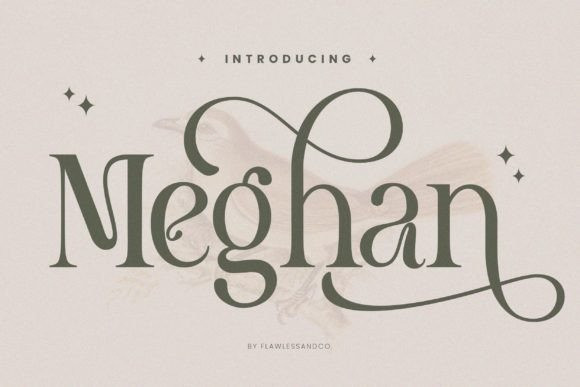
Meghan Font
Meghan Font is an artsy modern serif with an elegant touch. With some connected letters that are perfect for branding materials, t-shirts, logos, posters, photography, quotes, and many more. Get this quirky display font, and use it to create lovely designs!